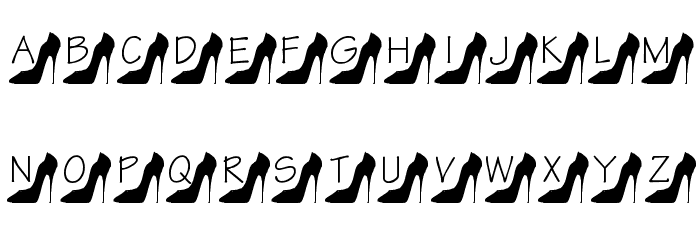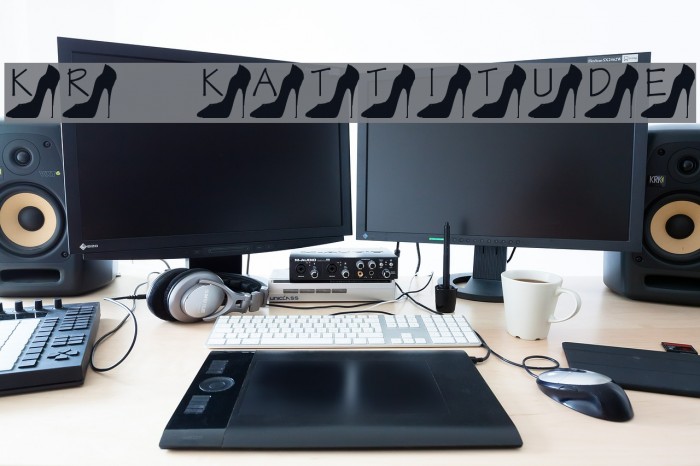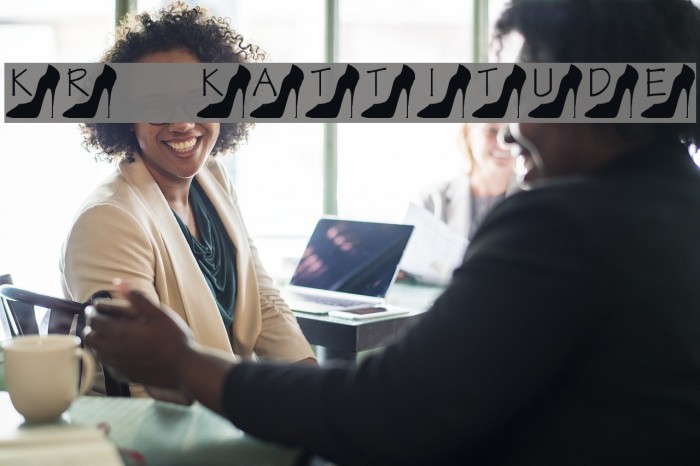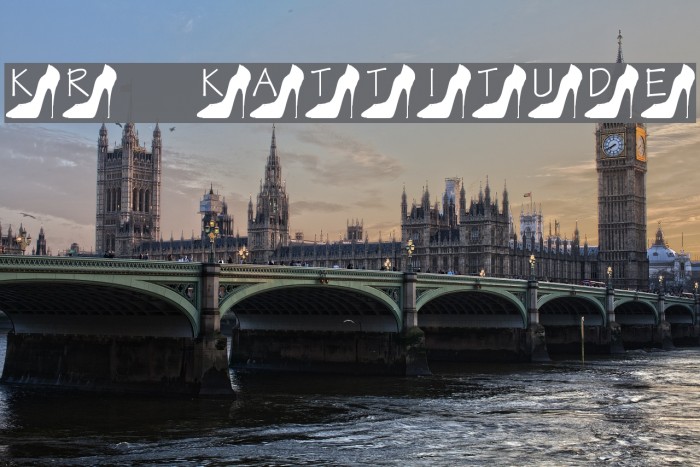
KR Kattitude Font
This font is a playful and unique decorative style that incorporates high-heeled shoe silhouettes into the design of each letter. The letters are uppercase and each character is creatively integrated with a stiletto heel, giving it a fashion-forward and whimsical appearance. The design is bold and eye-catching, making it ideal for projects that require a touch of glamour and style. The font's distinctive look is perfect for fashion-related themes or any creative project that aims to stand out.
A decorative font featuring high-heeled shoe silhouettes integrated into each letter.
- Proposed Projects: Ideal for fashion branding, event invitations, posters, and creative advertising campaigns.